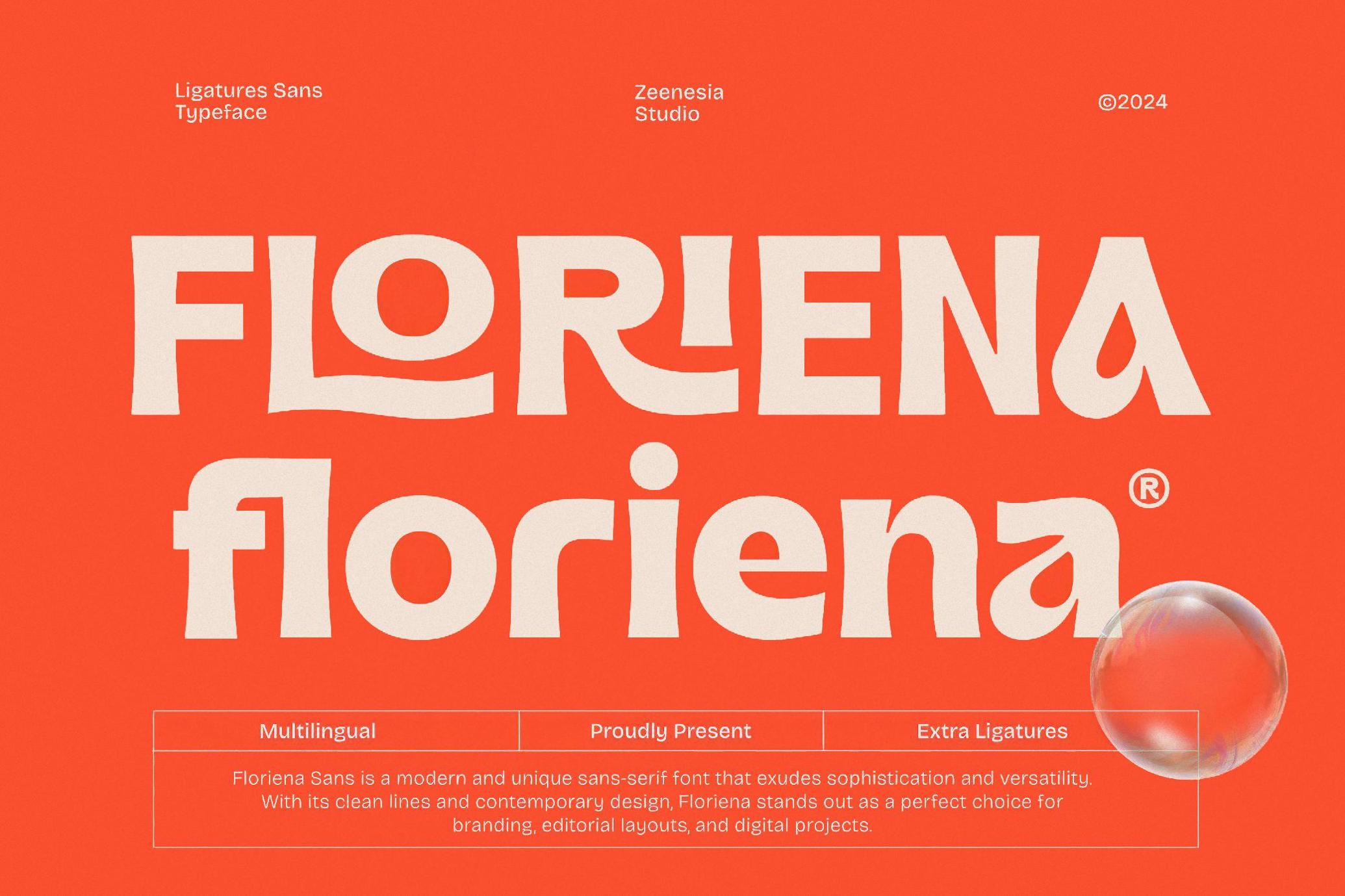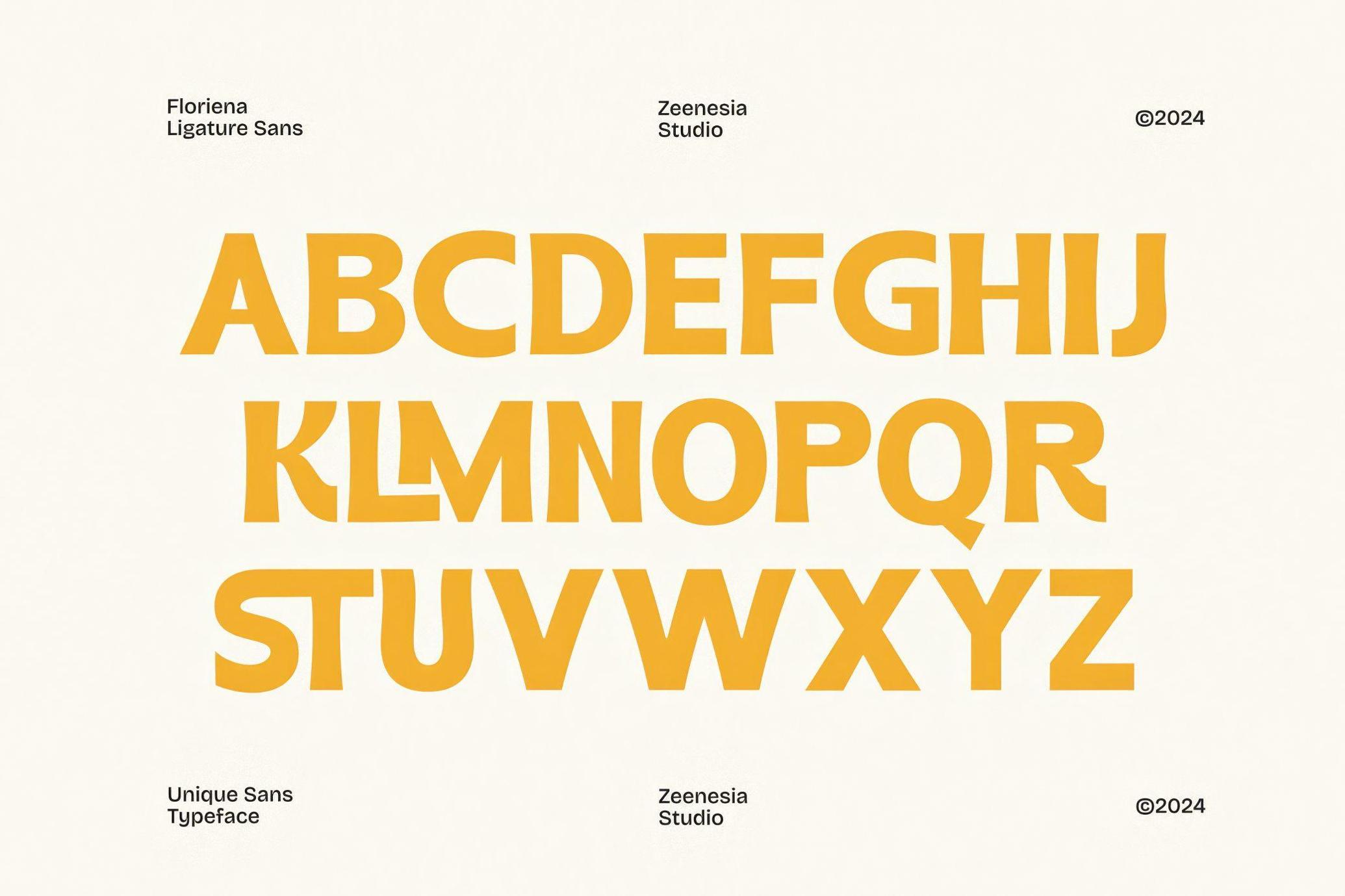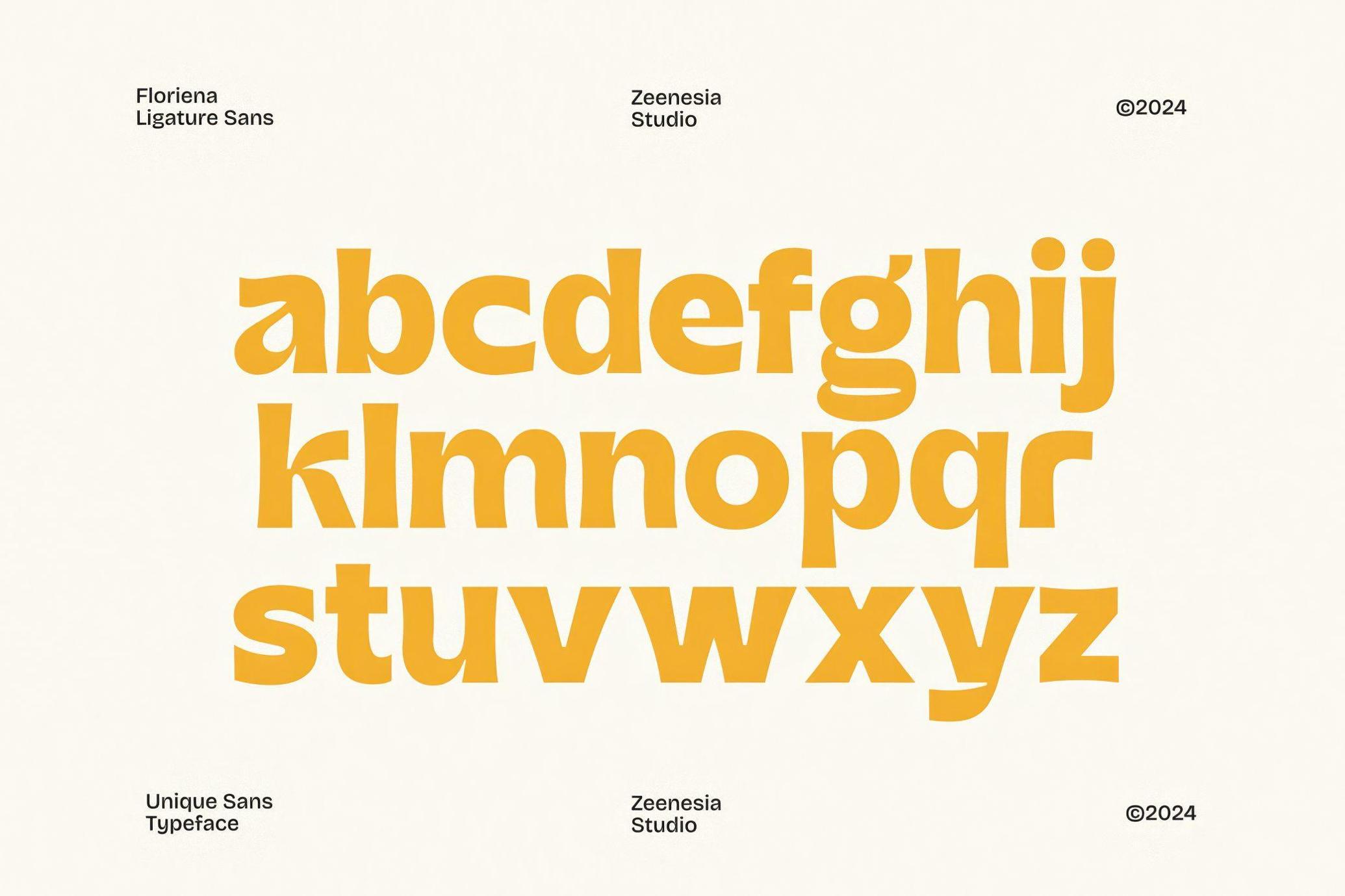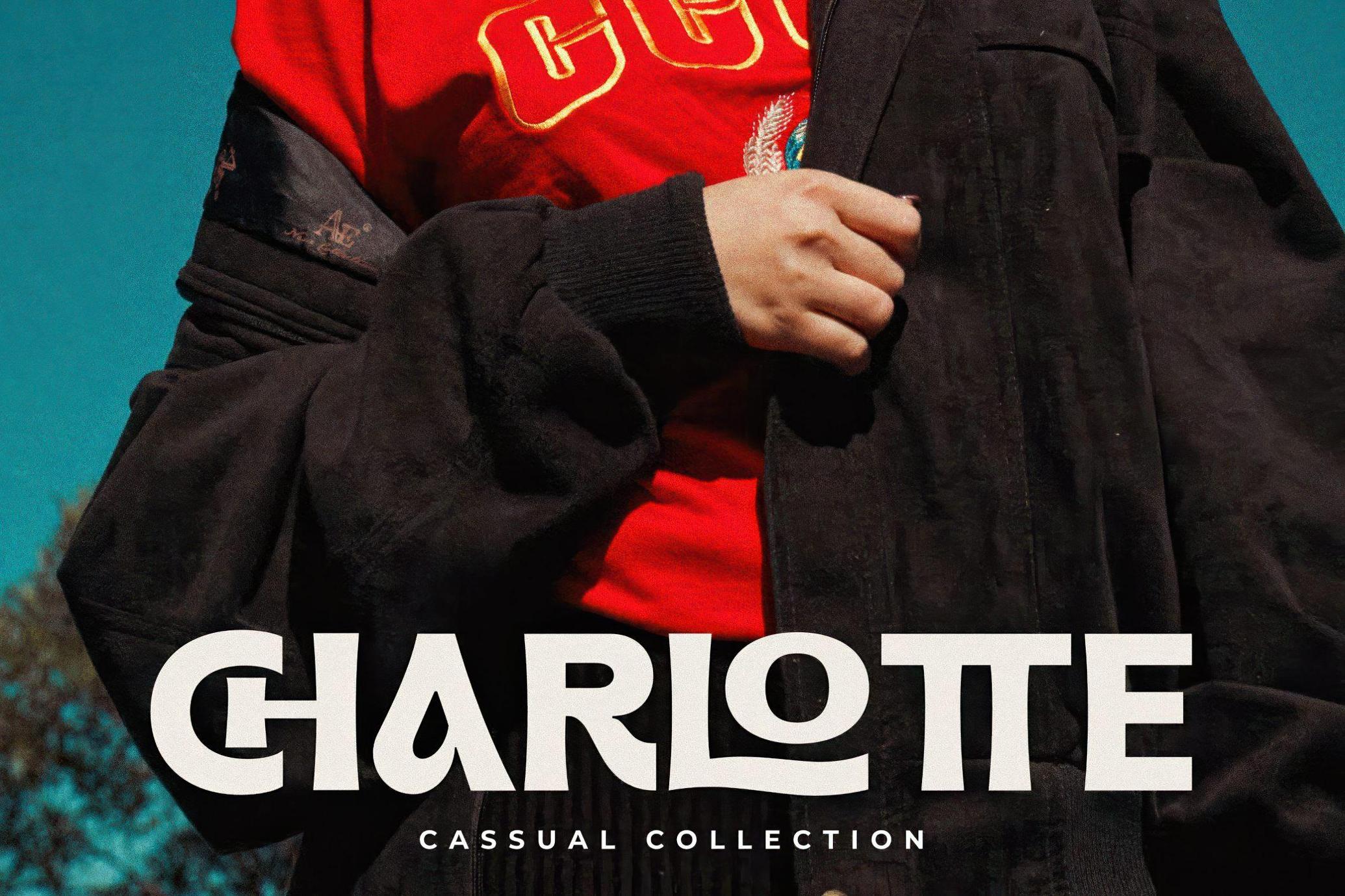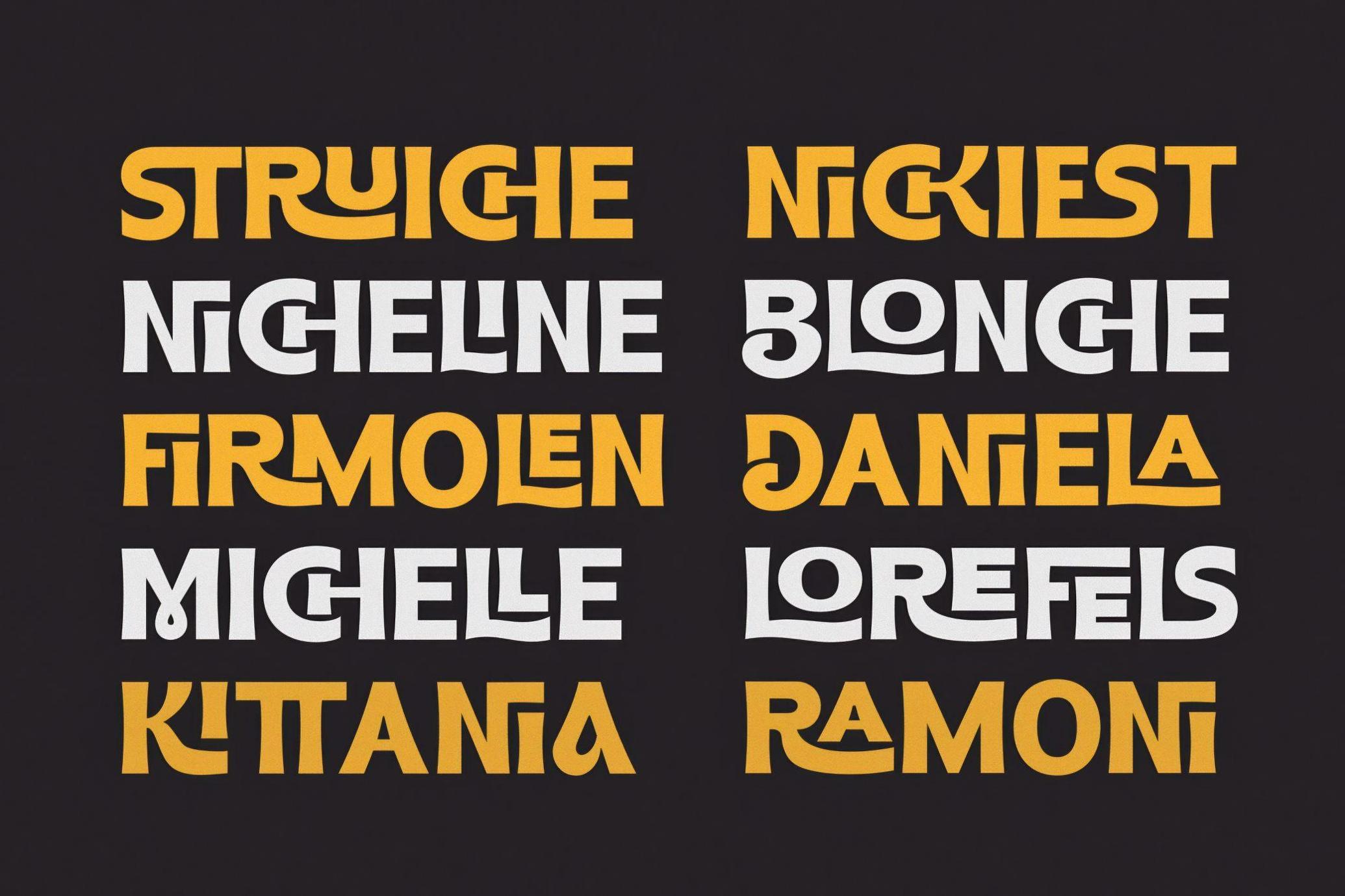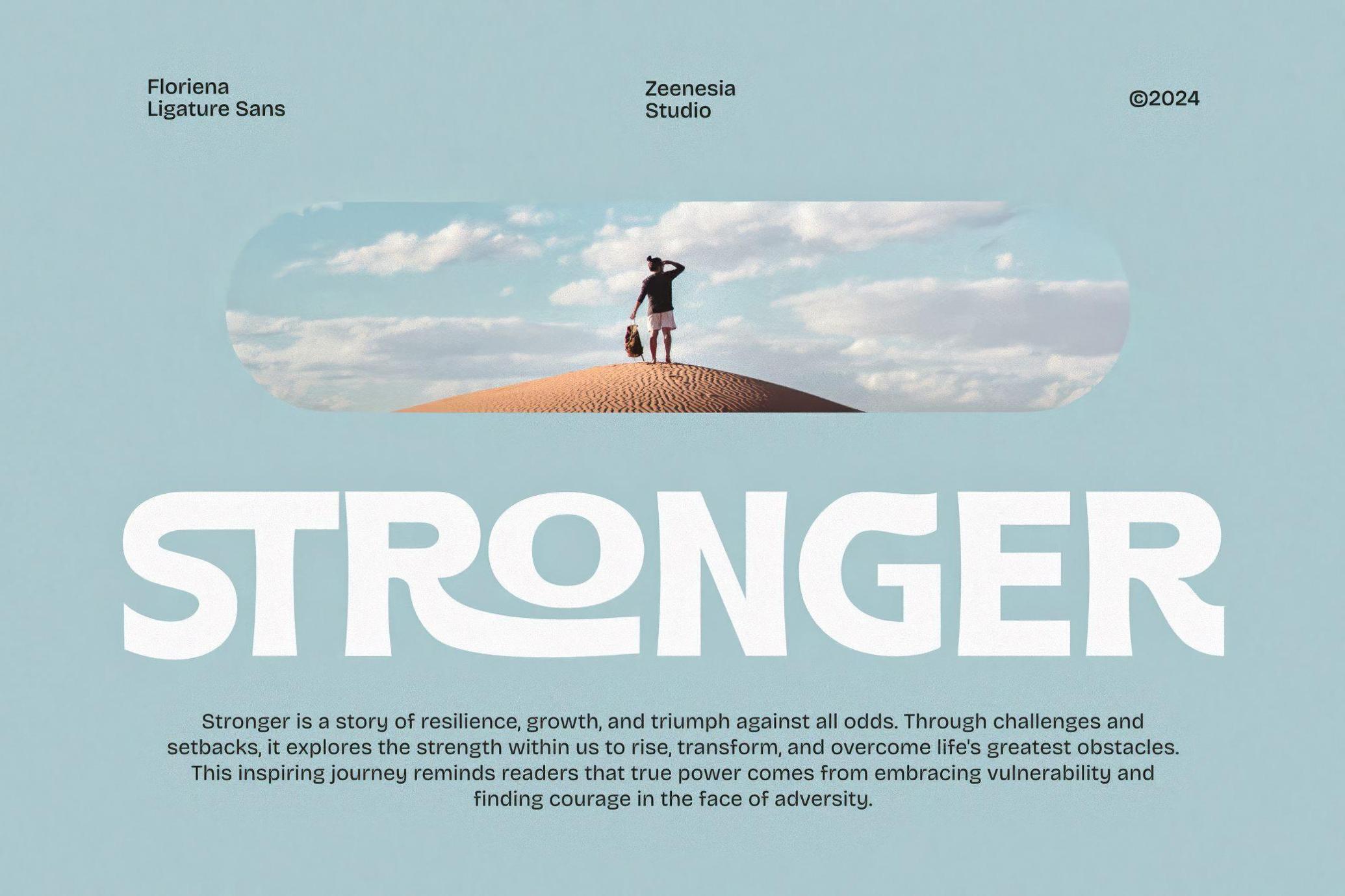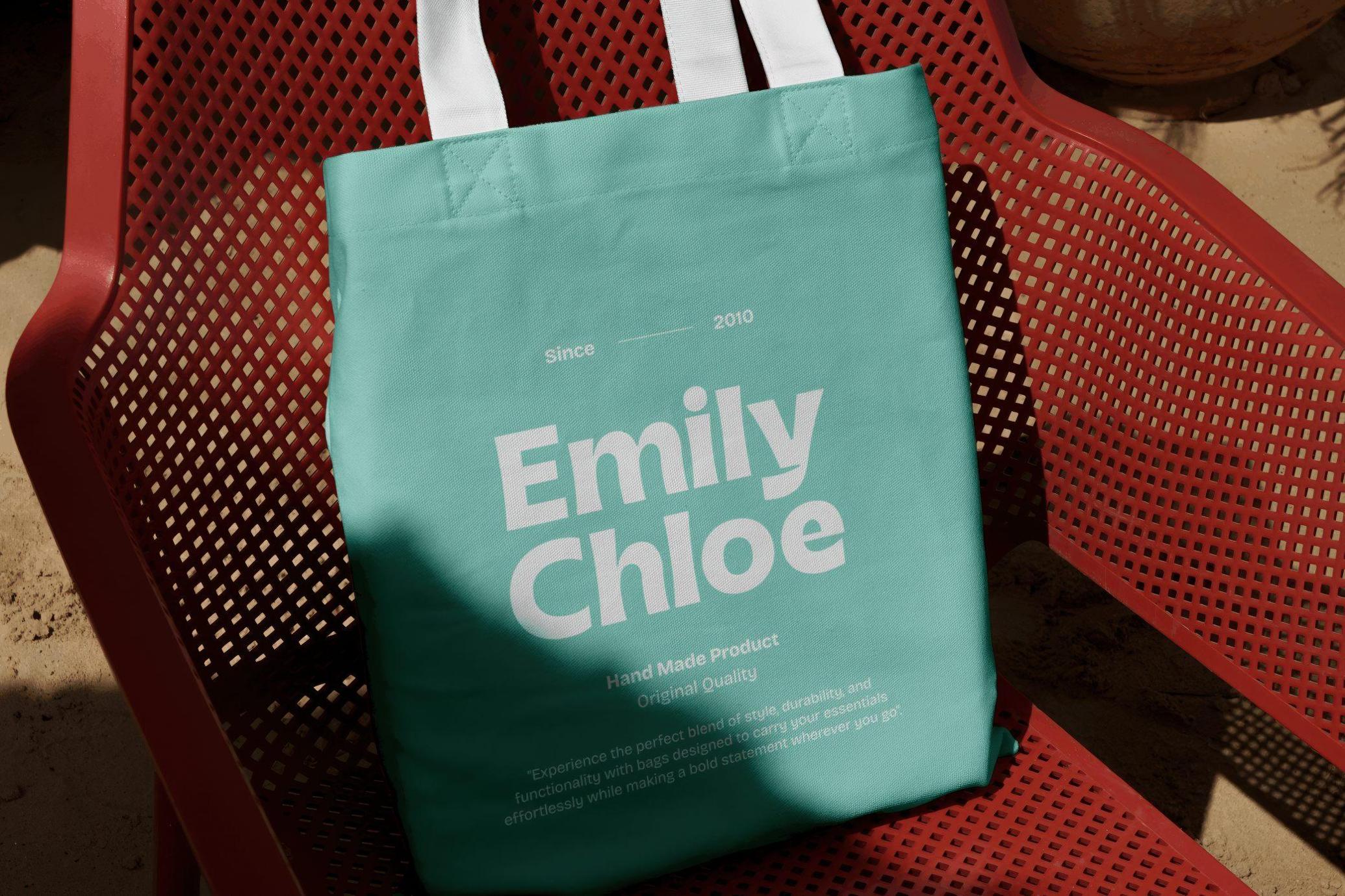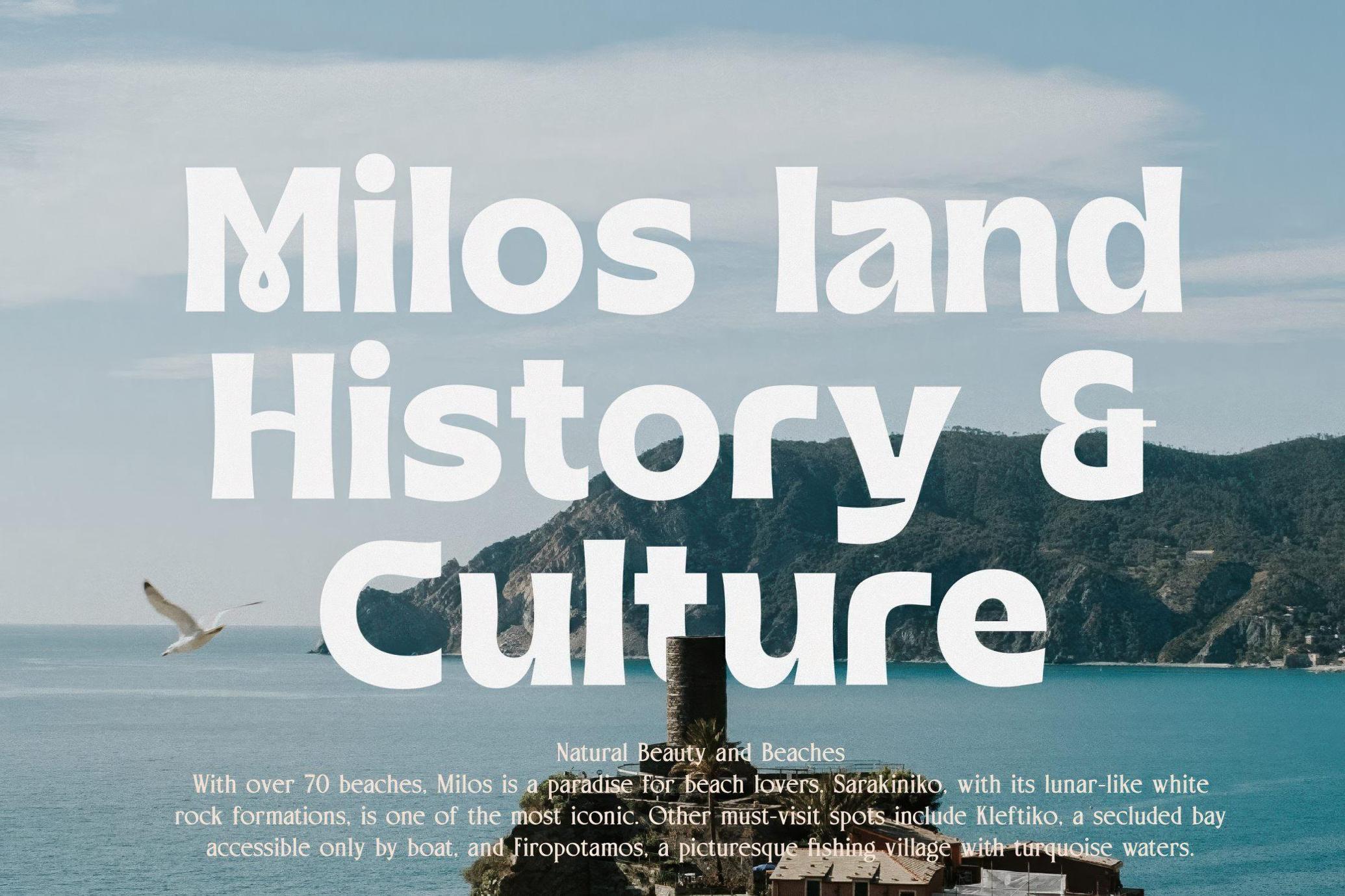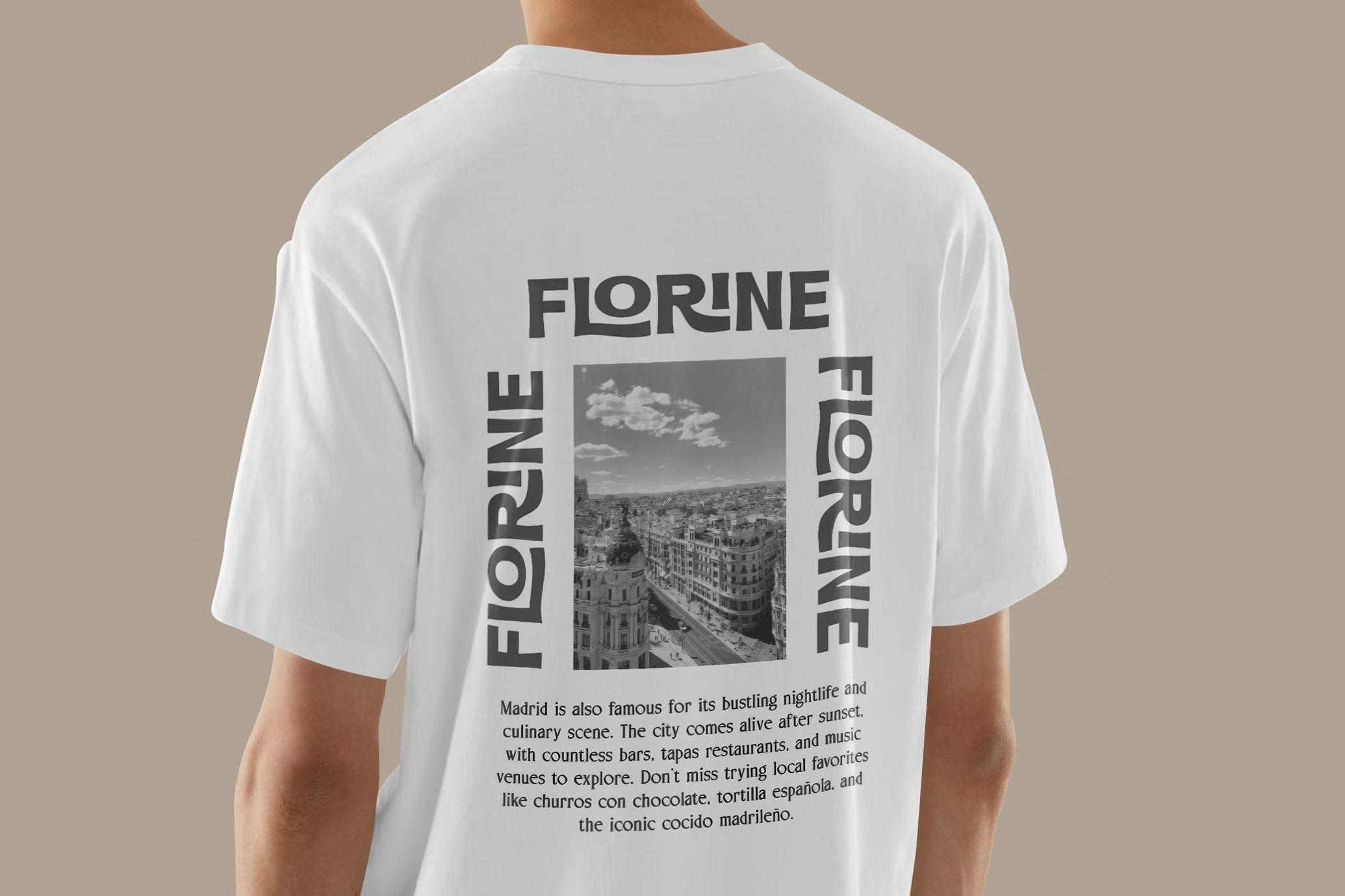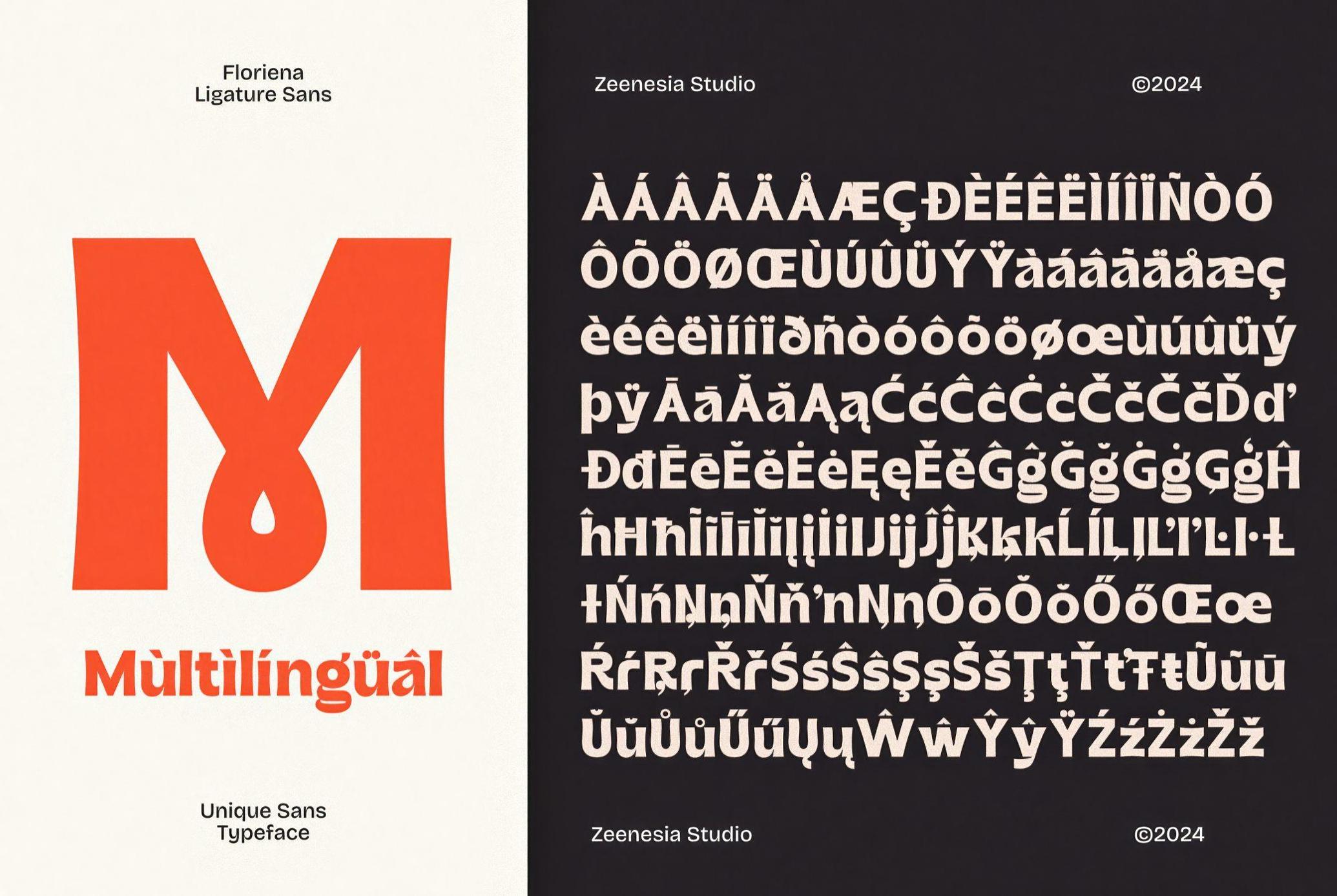
Floriena Ligatures Sans
Floriena draws its personality from wide-set proportions, tapering terminals, and ligatures that blend geometric form with rhythmic flow. There’s a playful drama in the way characters stretch, curl, and twist — yet the structure stays grounded and clean. Well-suited for wordmarks, editorial spreads, fashion campaigns, book covers, lifestyle packaging, wedding monograms, signage, or boutique branding. The distinctive ligatures and alternates offer endless opportunities to customize tone — from confident and contemporary to whimsical and expressive.